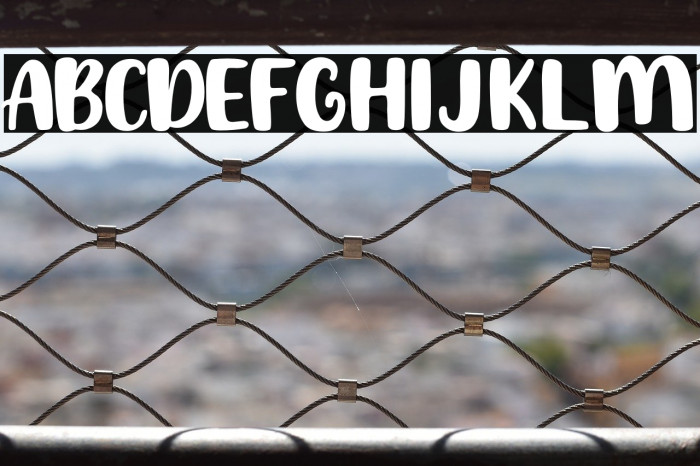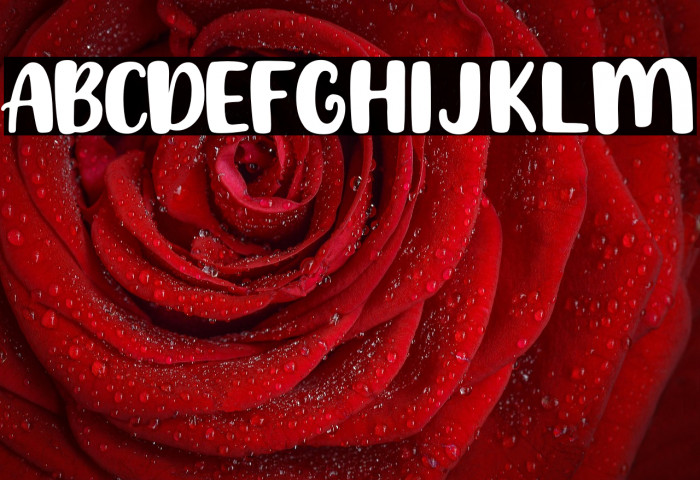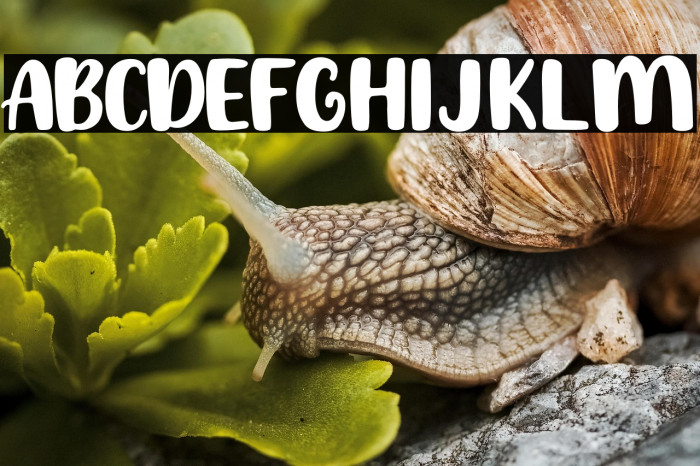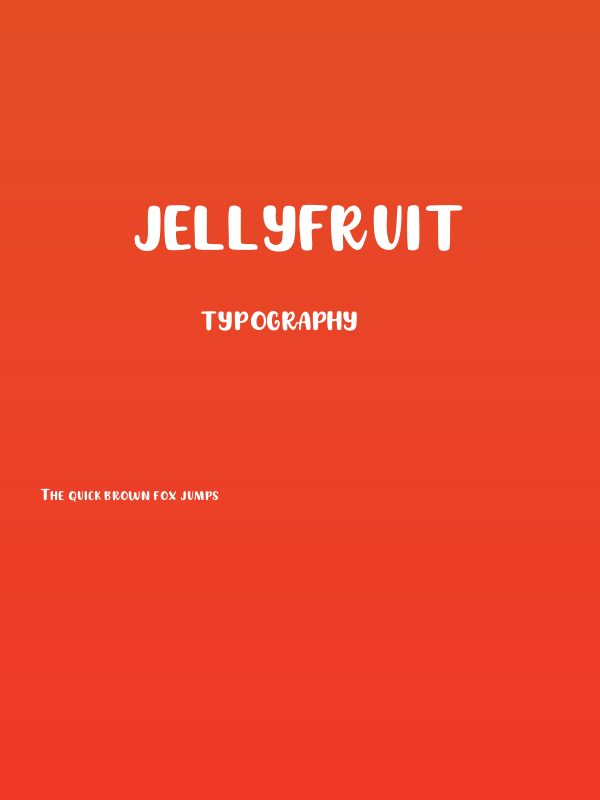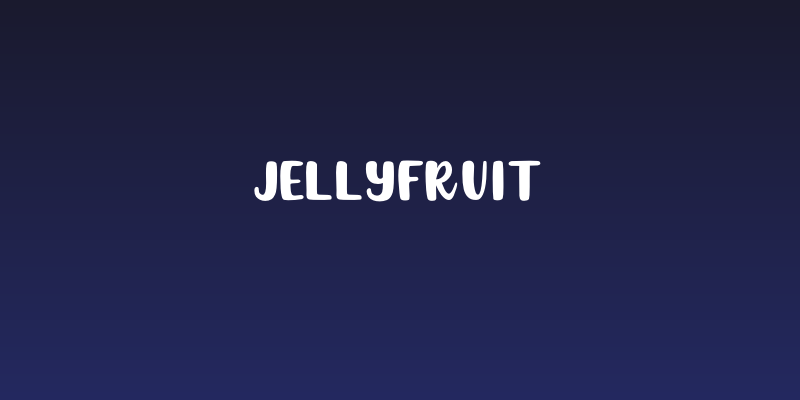
JELLYFRUIT Font
JELLYFRUIT Description
This playful and bold font features rounded, bubbly characters that exude a sense of fun and whimsy. The letters are thick and have a smooth, flowing appearance, making them stand out with a friendly and approachable vibe. The font maintains a consistent weight throughout, with a slightly condensed width that adds to its charm. The character spacing is normal, ensuring readability while maintaining its unique style. This font is ideal for projects that require a touch of creativity and lightheartedness.